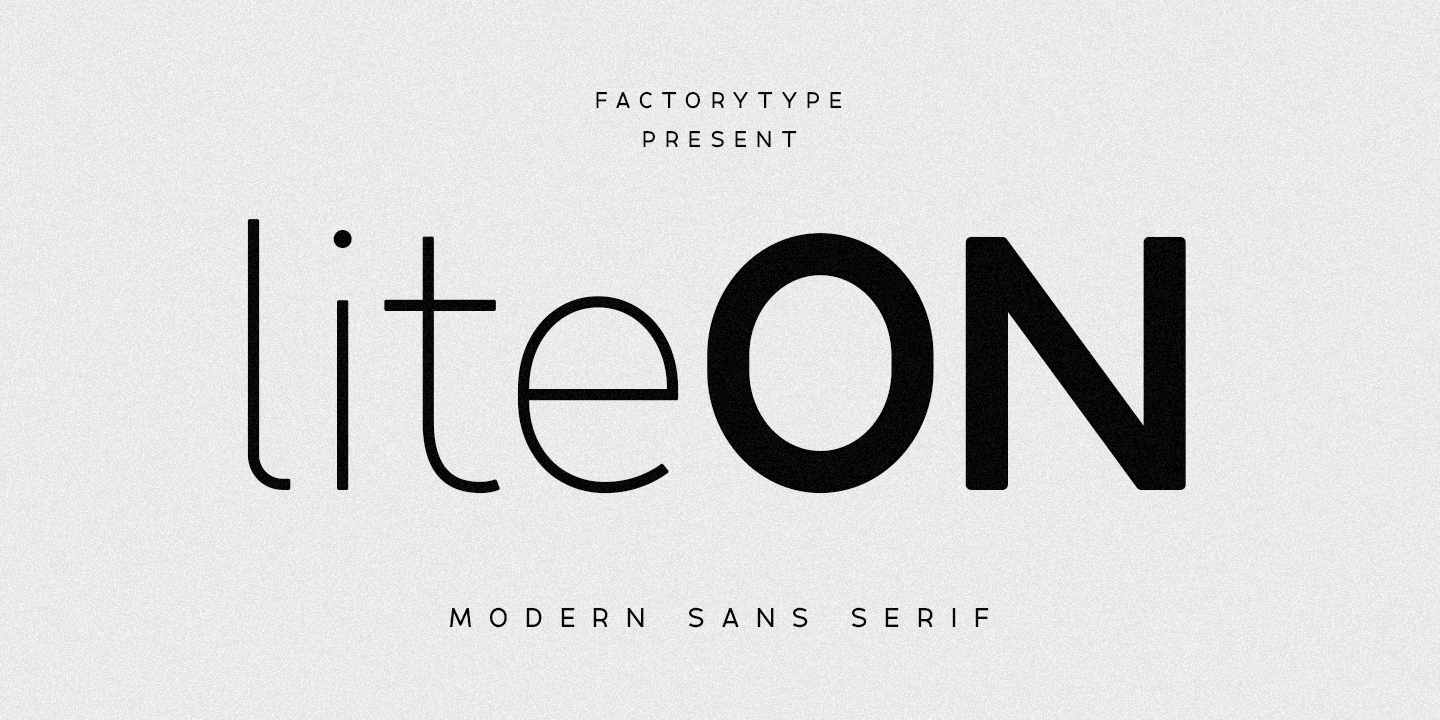
Lite On Font is ideal for modern tech branding, energy-efficient product marketing, LED lighting communications, electronics industry materials, sustainable technology campaigns, innovative device packaging, bright digital interfaces, illuminated signage systems, eco-friendly lighting promotions, and contemporary efficiency applications. This luminous typeface creates authentic technological atmosphere in both digital displays and energy-focused print platforms.
What makes Lite On Font exciting is its perfect embodiment of energy efficiency with luminous clarity and technological sophistication that reflects modern lighting innovation. The font features bright letterforms with energy-efficient proportions and illuminated character details that evoke LED brilliance, sustainable technology, and smart lighting solutions. Its efficient design establishes an atmosphere of technological advancement and energy consciousness that resonates with eco-aware audiences seeking authentic efficiency and innovative lighting solutions.
Lite On Font family includes efficient variations: Ultra Light, Light, Regular, Medium, and Bright versions, each with illuminated alternates and energy character sets. Each variant maintains the font's luminous personality while providing designers with efficient options for creating bright typography systems and technological communication materials.
This exceptional technological typeface brings authentic efficiency credibility to projects requiring illuminated presentation. Whether you're designing energy brands, LED marketing, or sustainable technology materials, Lite On Font Free Download delivers outstanding brightness and technological sophistication. The font's energy-efficient proportions and luminous details ensure memorable illuminated connection across various technology applications.
Technology companies and lighting manufacturers recognize how Lite On Font perfectly captures the essence of energy efficiency and LED innovation. Its technological foundation combined with sustainable brightness makes it essential for technology and energy design projects. Download today and illuminate your designs with this exceptionally efficient technological typography.